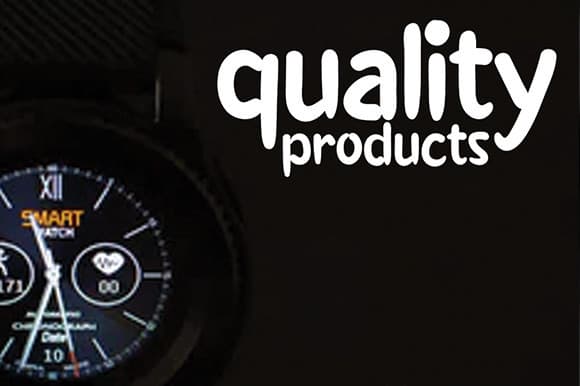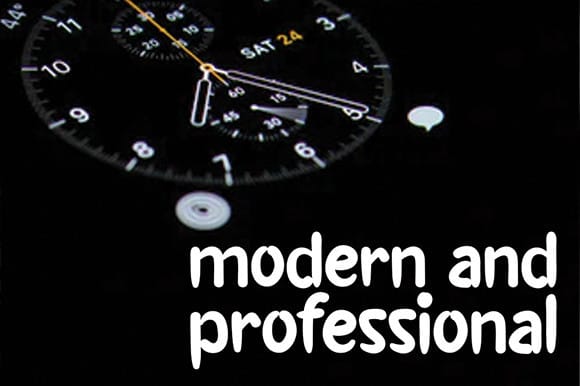
Riago Migo Display Font
Riago Migo Display Font is the latest style letters are perfect for wall displays, wedding invitations, social media post logos,